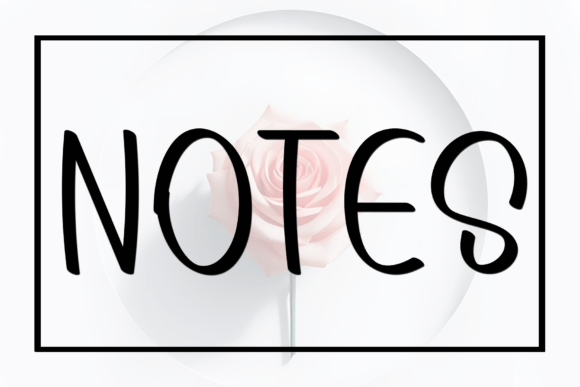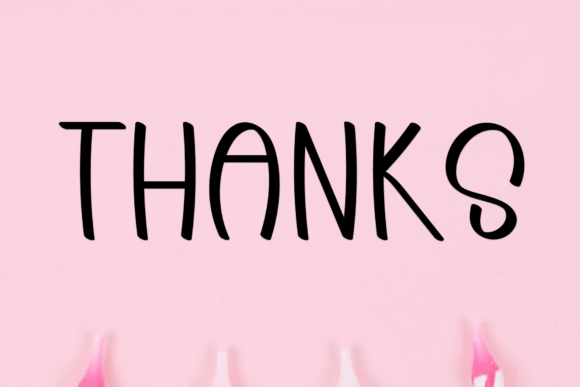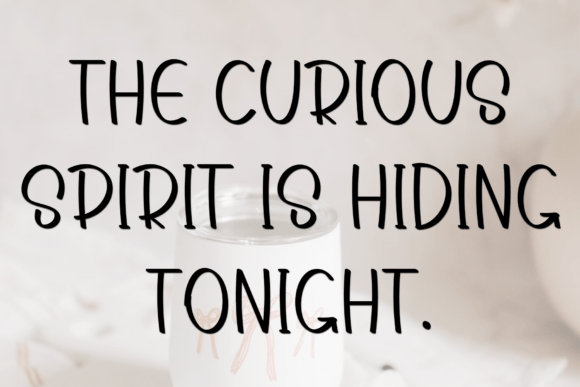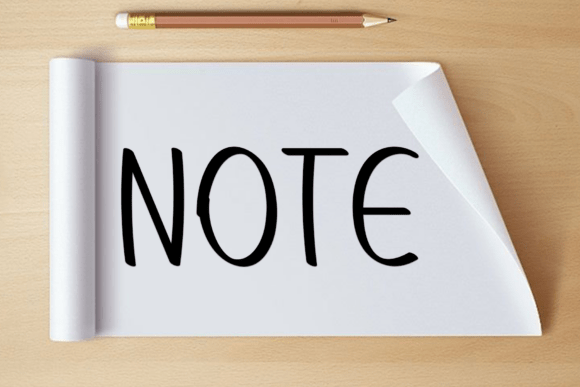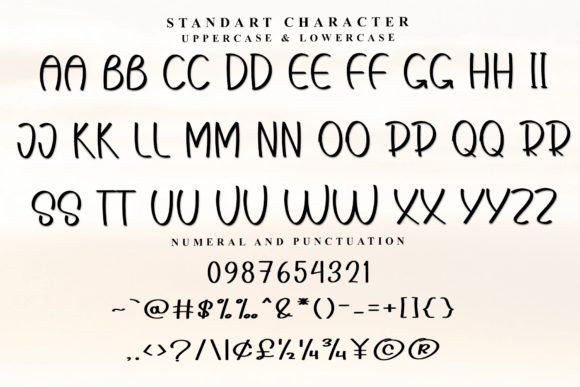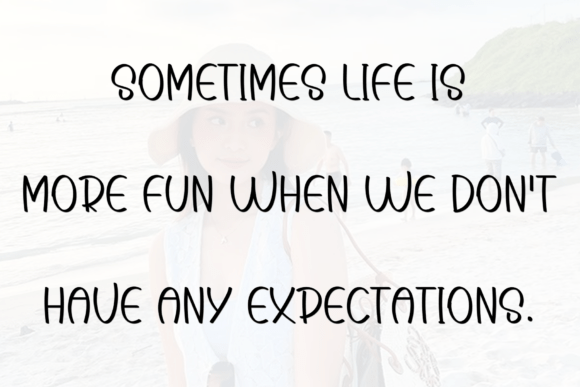
Introducing Designer Elegant Font: Elevate Your Designs with Elegance and Sophistication
In the world of design, typography plays a crucial role in conveying messages, expressing emotions, and creating visual identities. A well-crafted font can elevate a design project from ordinary to extraordinary, making it essential for designers and crafters to choose the right font for their creative works. This is where the Designer Elegant Font comes in – a beautiful, eye-catching font designed with a soft, unique touch that is sure to impress.
The Distinctive Characteristics of Designer Elegant Font
The Designer Elegant Font boasts distinctive strokes that give it a special character, making it both meaningful and versatile for future use. Its unique design ensures that it stands out from other fonts, adding a touch of elegance and sophistication to any design project. Whether you’re working on a logo, brochure, or website, this font is perfect for creating visually appealing designs that capture the attention of your audience.
Perfect for Design Projects, Crafts, and Creative Works
With various characters to choose from, the Designer Elegant Font is ideal for a wide range of design projects, crafts, and creative works. Its natural font style makes it perfect for designers and crafters who want to add a touch of elegance and sophistication to their work. From wedding invitations and business cards to posters and social media graphics, this font is sure to enhance your designs and make them appealing to many audiences across different artistic and creative fields.
The Benefits of Using Designer Elegant Font
So, why choose the Designer Elegant Font for your design projects? Here are just a few benefits of using this beautiful font:
• Elegance and Sophistication: Add a touch of elegance and sophistication to your designs with this unique and eye-catching font.
• Versatility: Use it in a wide range of design projects, from logos and brochures to posters and social media graphics.
Tips for Using Designer Elegant Font
To get the most out of the Designer Elegant Font, here are a few tips to keep in mind:
• Experiment with Different Sizes: Try using the font in different sizes to create visual interest and hierarchy in your designs.
• Pair it with Other Fonts: Combine the Designer Elegant Font with other fonts to create a unique and visually appealing typography.
• Use it for Headings and Titles: Use the font for headings and titles to add a touch of elegance and sophistication to your designs.
In conclusion, the Designer Elegant Font is a beautiful and eye-catching font that is perfect for designers and crafters who want to add a touch of elegance and sophistication to their work. With its distinctive strokes, versatility, and compatibility with various applications, this font is sure to enhance your designs and make them appealing to many audiences across different artistic and creative fields. So why wait? Download the Designer Elegant Font today and take your designs to the next level!